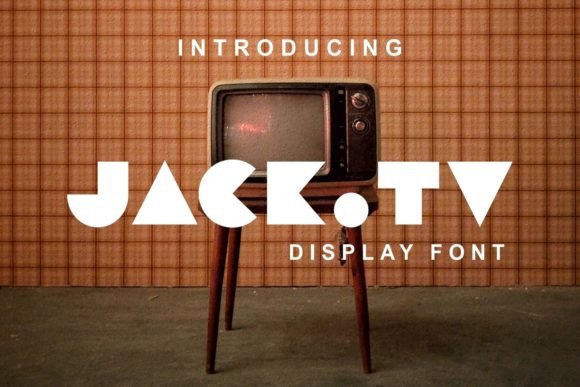
Introducing Jack Tv Font, the display font that exudes boldness and vintage charm. Its strong yet playful character brings an instant retro vibe to any project.
Every stroke of Jack Tv Font is a testament to the golden era of design, where simplicity met impact. Its versatility knows no bounds, making it the perfect choice for everything from whimsical greeting cards to eye-catching headlines.
But it's not just its retro aesthetic that makes Jack Tv Font a must-have. Its bold, confident strokes command attention, demanding to be noticed. Whether you're designing a logo that speaks volumes or crafting a poster that sparks conversations, Jack Tv Font has the power to turn your vision into reality.
So why settle for ordinary fonts when you can unleash the extraordinary with Jack Tv Font? Its unique blend of vintage style and modern appeal will elevate your designs and leave a lasting impression on your audience. Don't let your projects fade into the background—embrace the bold, the retro, and the unforgettable with Jack Tv Font today!